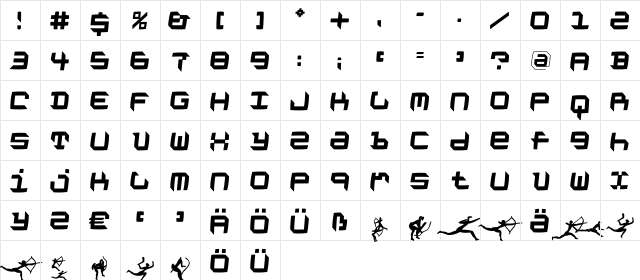
VanDoesburgBrokenFS Regular
Design Context for VanDoesburgBrokenFS Typeface
VanDoesburgBrokenFS is a composed and adaptable typeface that performs quietly and consistently across a wide range of design contexts.